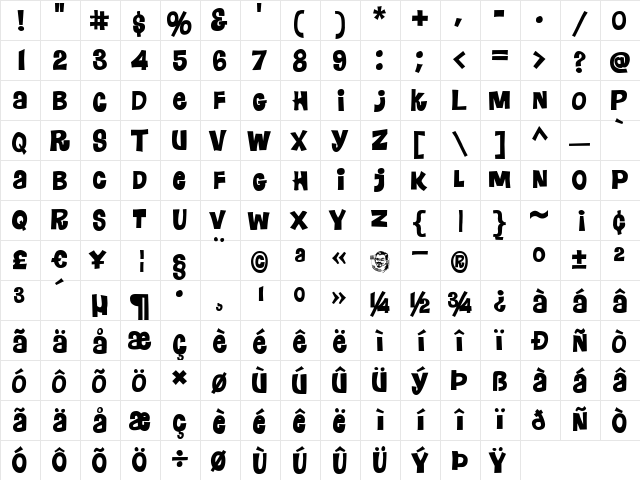
Bradeybutch Normal
Design Context for Bradeybutch Typeface
Bradeybutch is a composed and adaptable typeface that performs quietly and consistently across a wide range of design contexts.